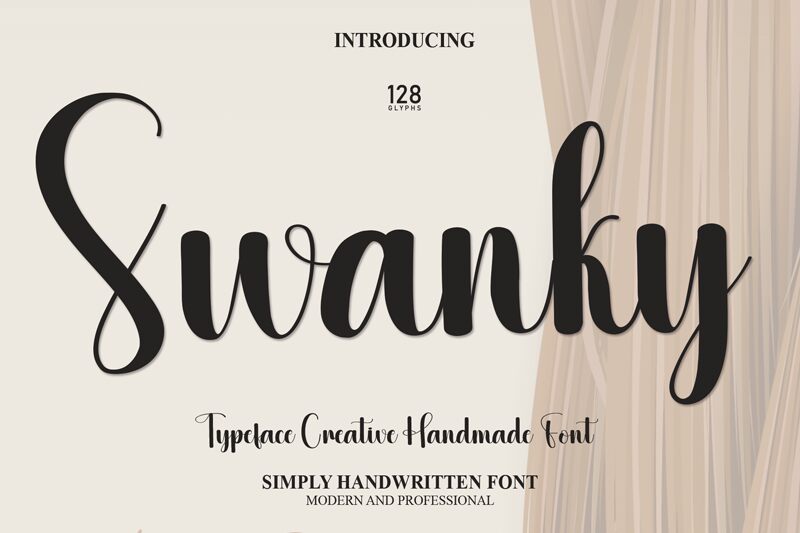
Swanky
Swanky font by Scratchones exudes playful elegance with its distinct handwritten style. Characterized by fluid, sweeping strokes and charming flourishes, Swanky effortlessly captures a sense of whimsy and sophistication. Its lighter elements enhance the airy feel, while sections that boldly expand create visual dynamism, making it perfect for eye-catching headlines or inviting logos.
Ideal for branding in creative industries, wedding invitations, or cheerful greeting cards, Swanky brings a joyous personality to any design project. The harmonious blend of lightness and expressive character ensures that it remains memorable without overwhelming the senses. Embrace Swanky to infuse your designs with a lively flair that speaks both to artistry and approachability.